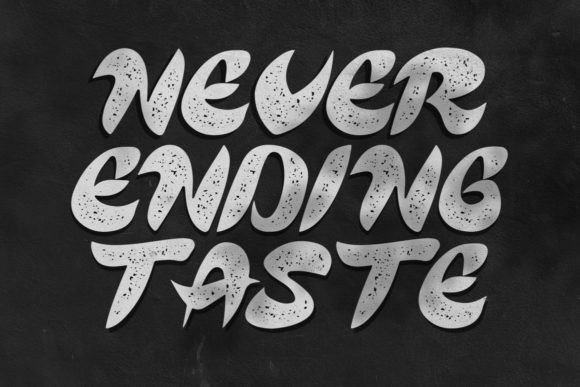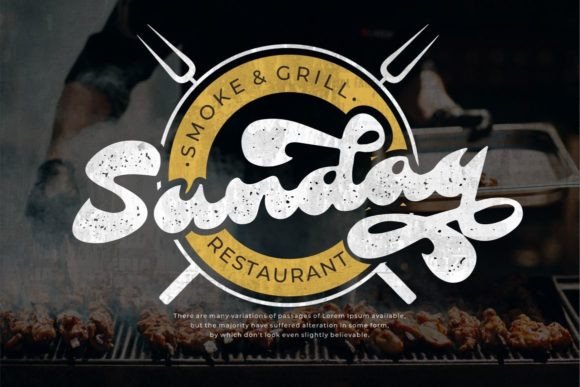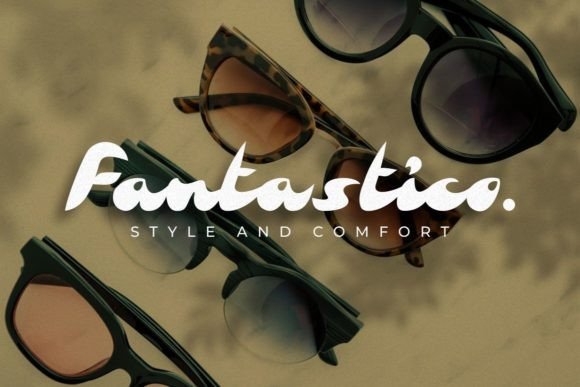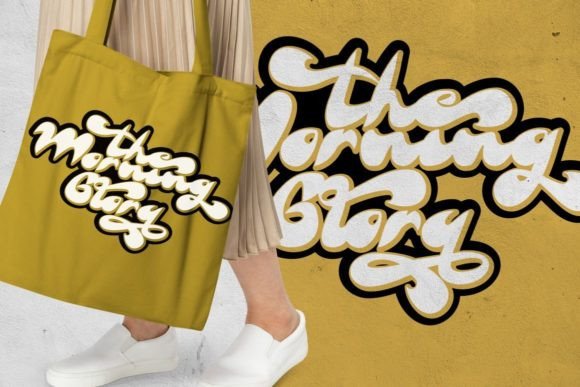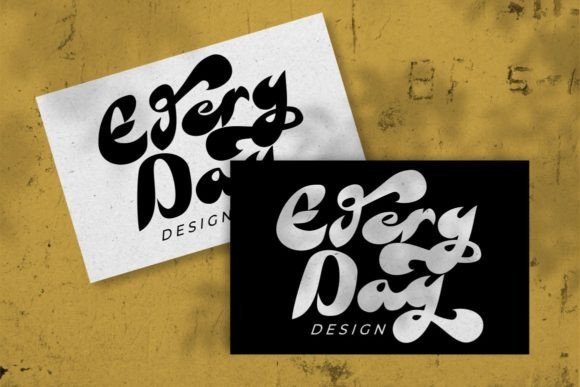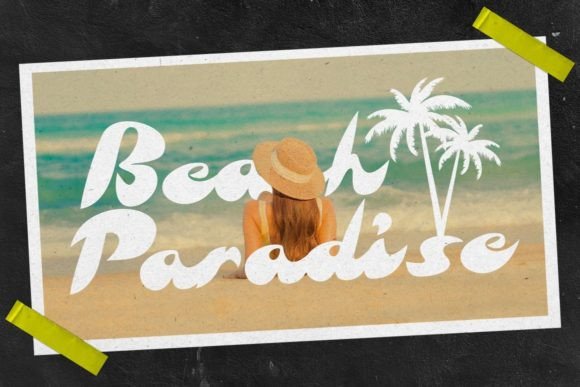
Introduction to Griffin Brush Font
Griffin Brush is a cool and modern brush display font.
Whether you use it for cartoon-related designs, childrenโs games, or just any creation that requires a lovely touch, this font will be an amazing choice This font is PUA encoded which means you can access all glyphs and ligatures with ease.
Key Features of Griffin Brush Font